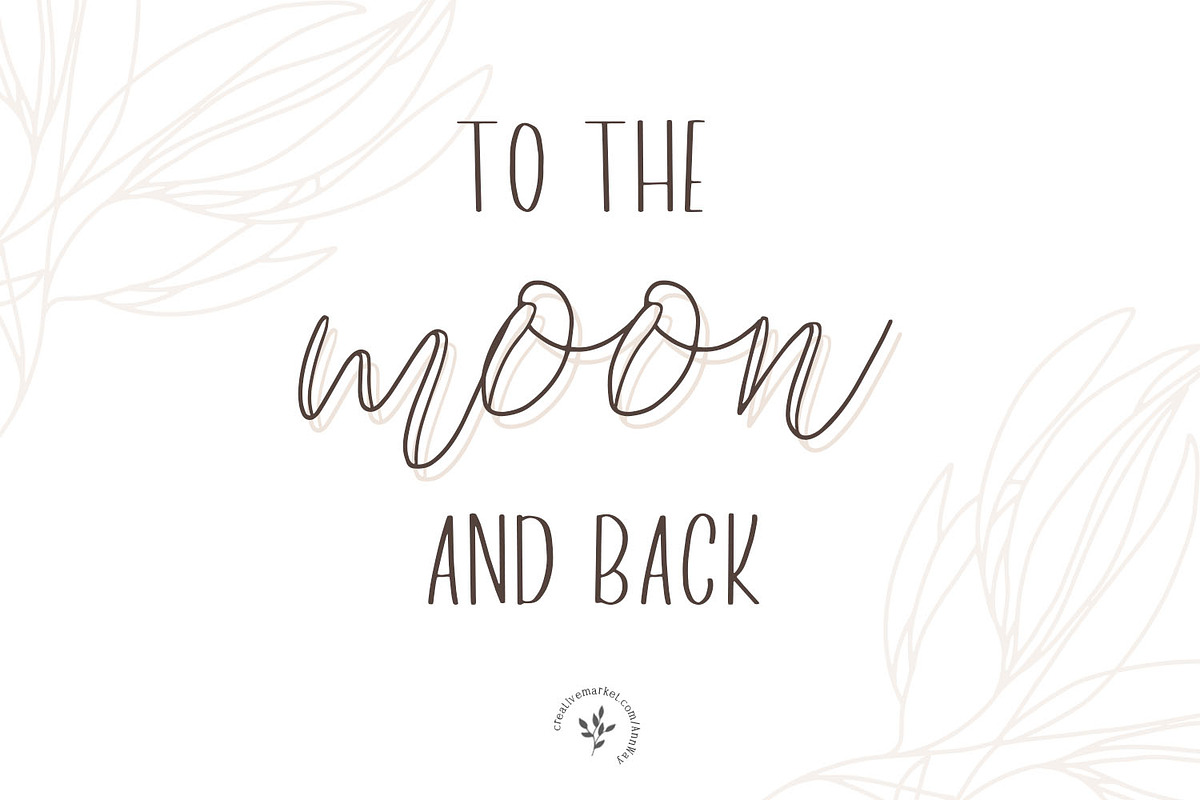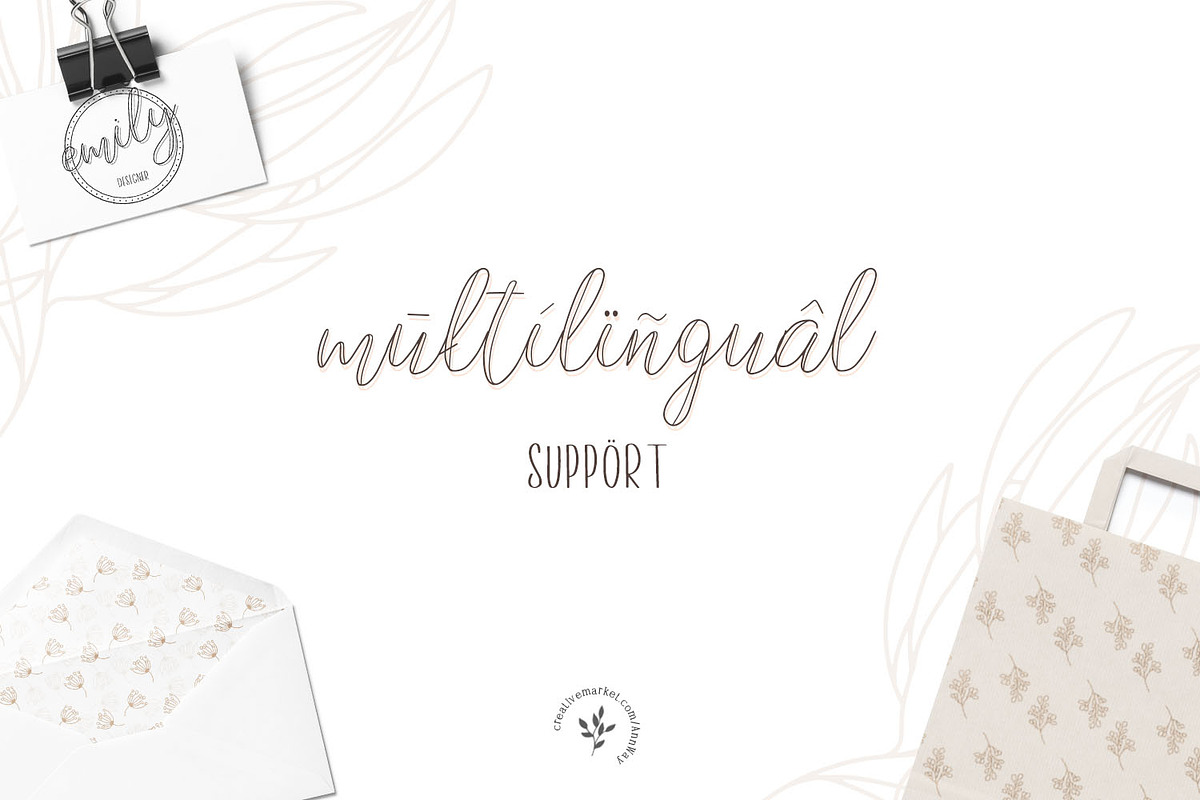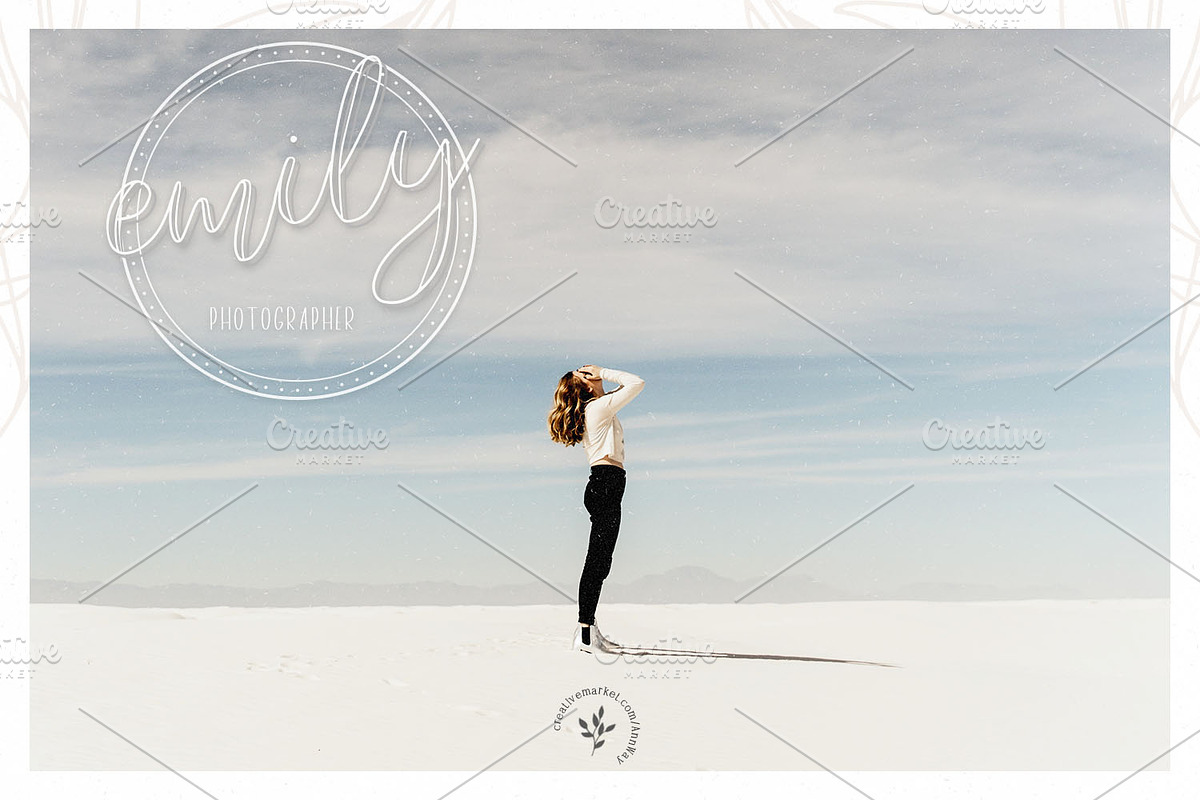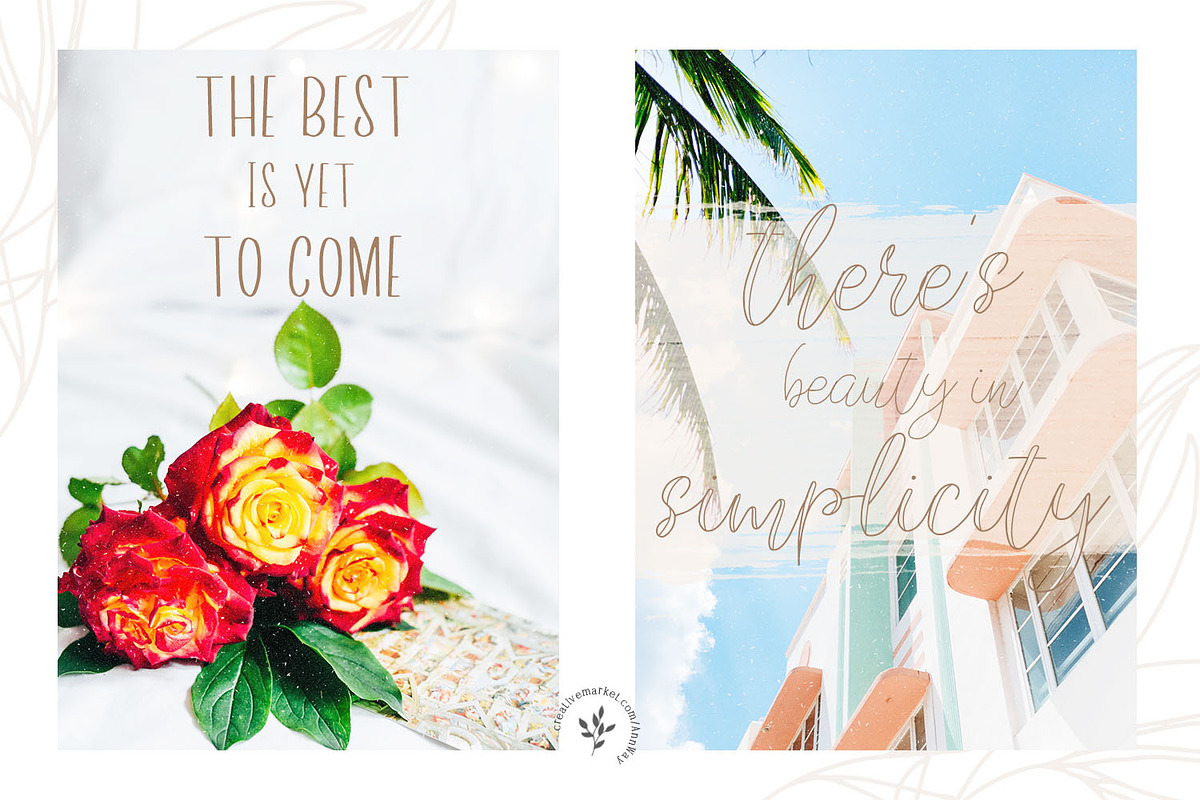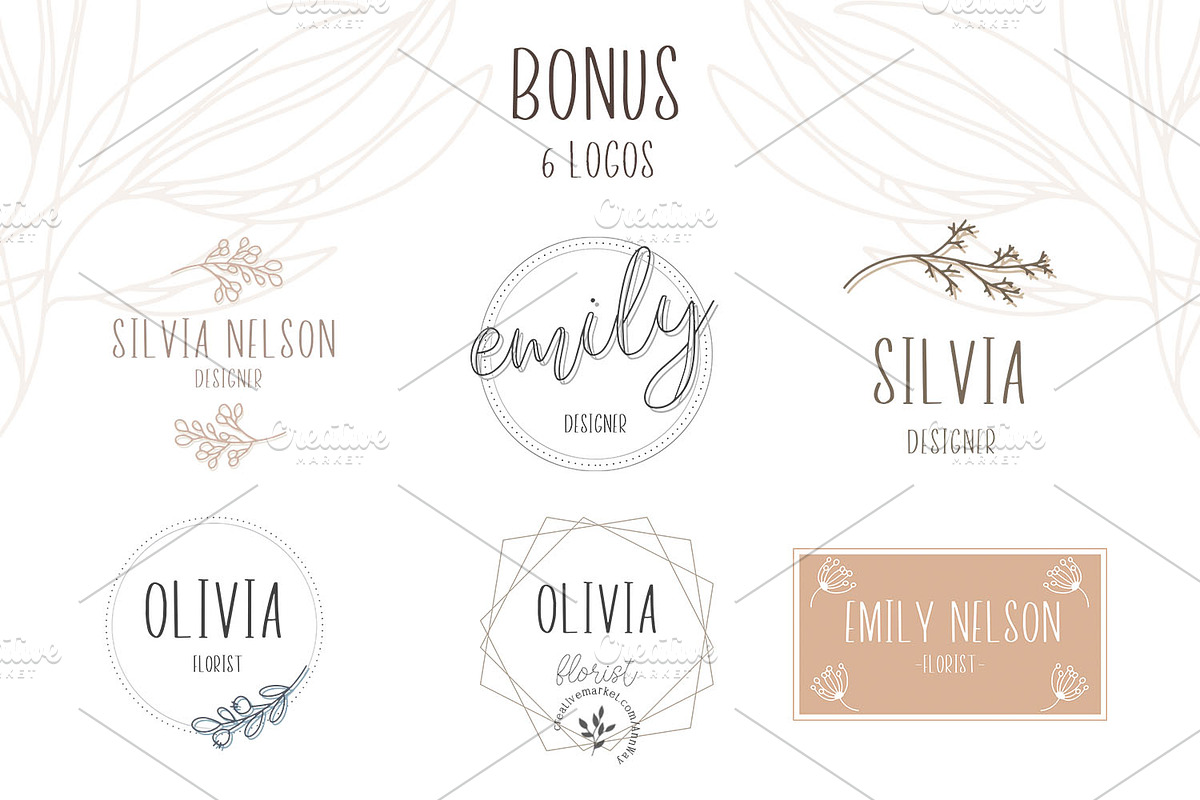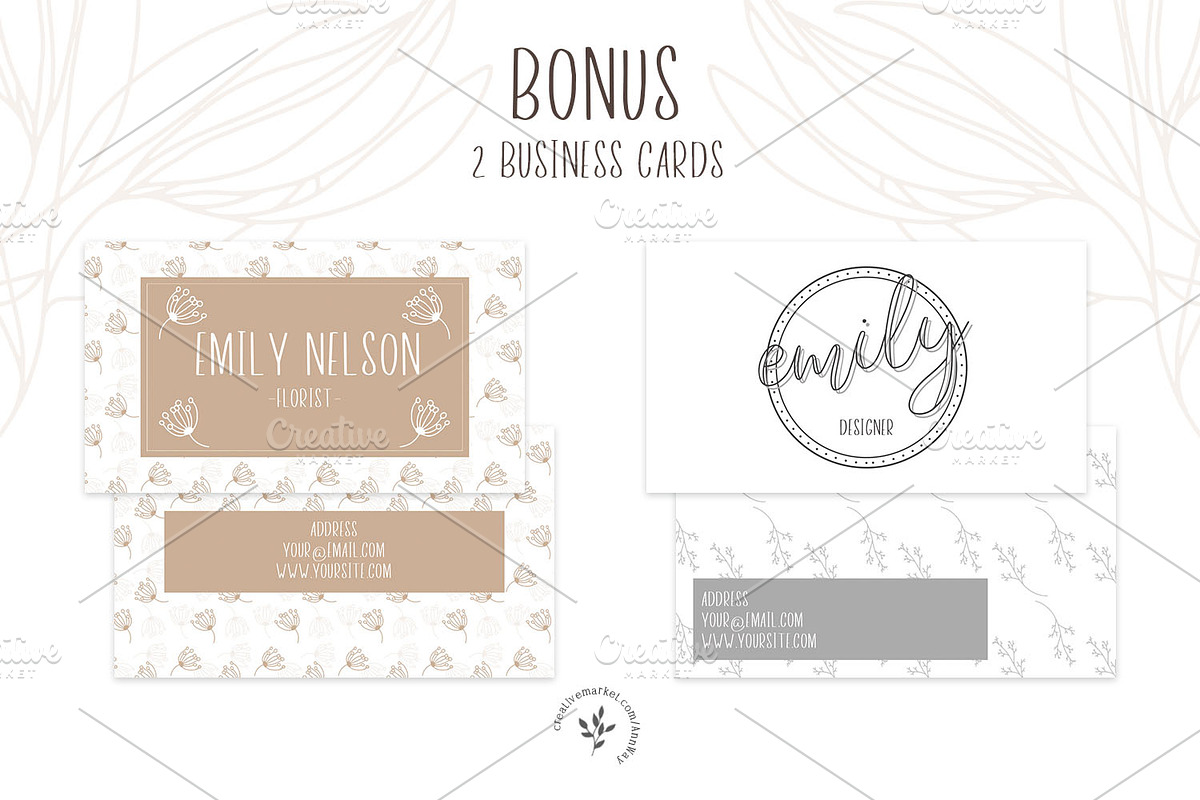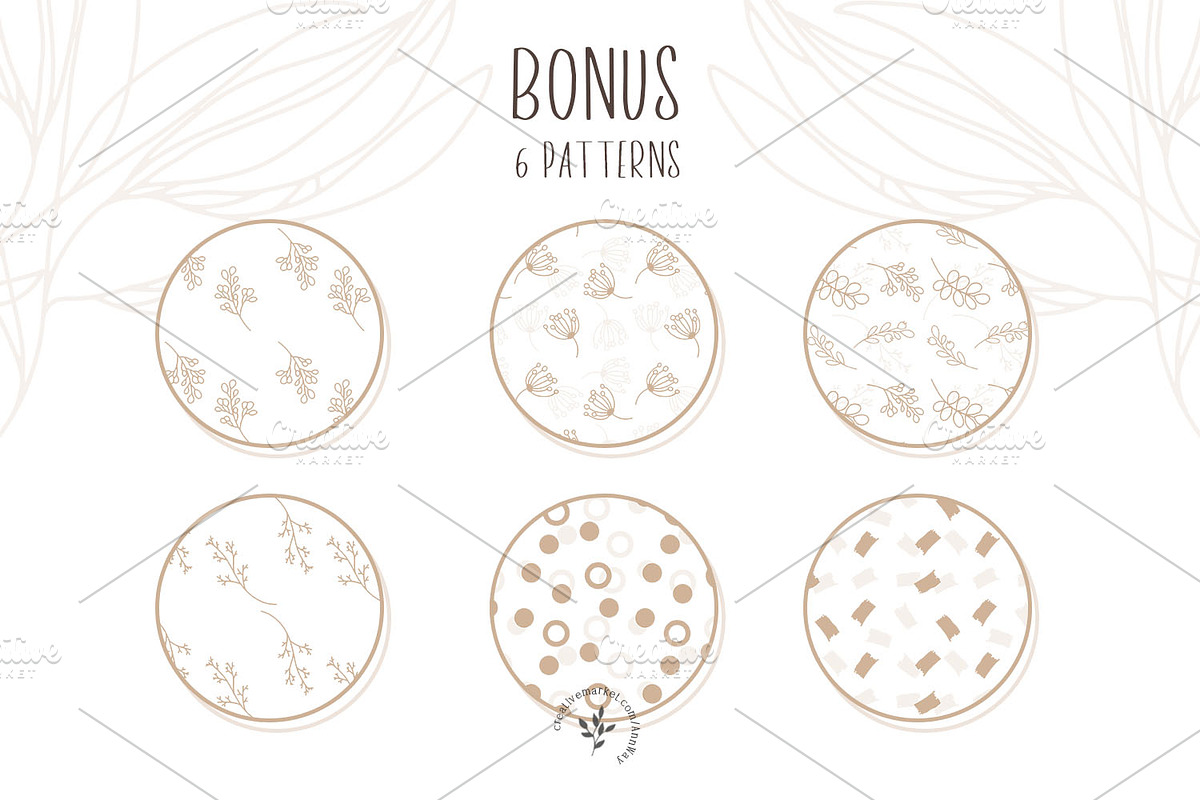
Misano Adriatico | Fonts + Bonuses
These Fonts is well suited for various design projects, such as logos, advertising, quotes, packaging design and others.
Why Misano Adriatico | Fonts + Bonuses is worth a look
Misano Adriatico | Fonts + Bonuses by Blossom fits naturally into Branding, posters, packaging, typography.